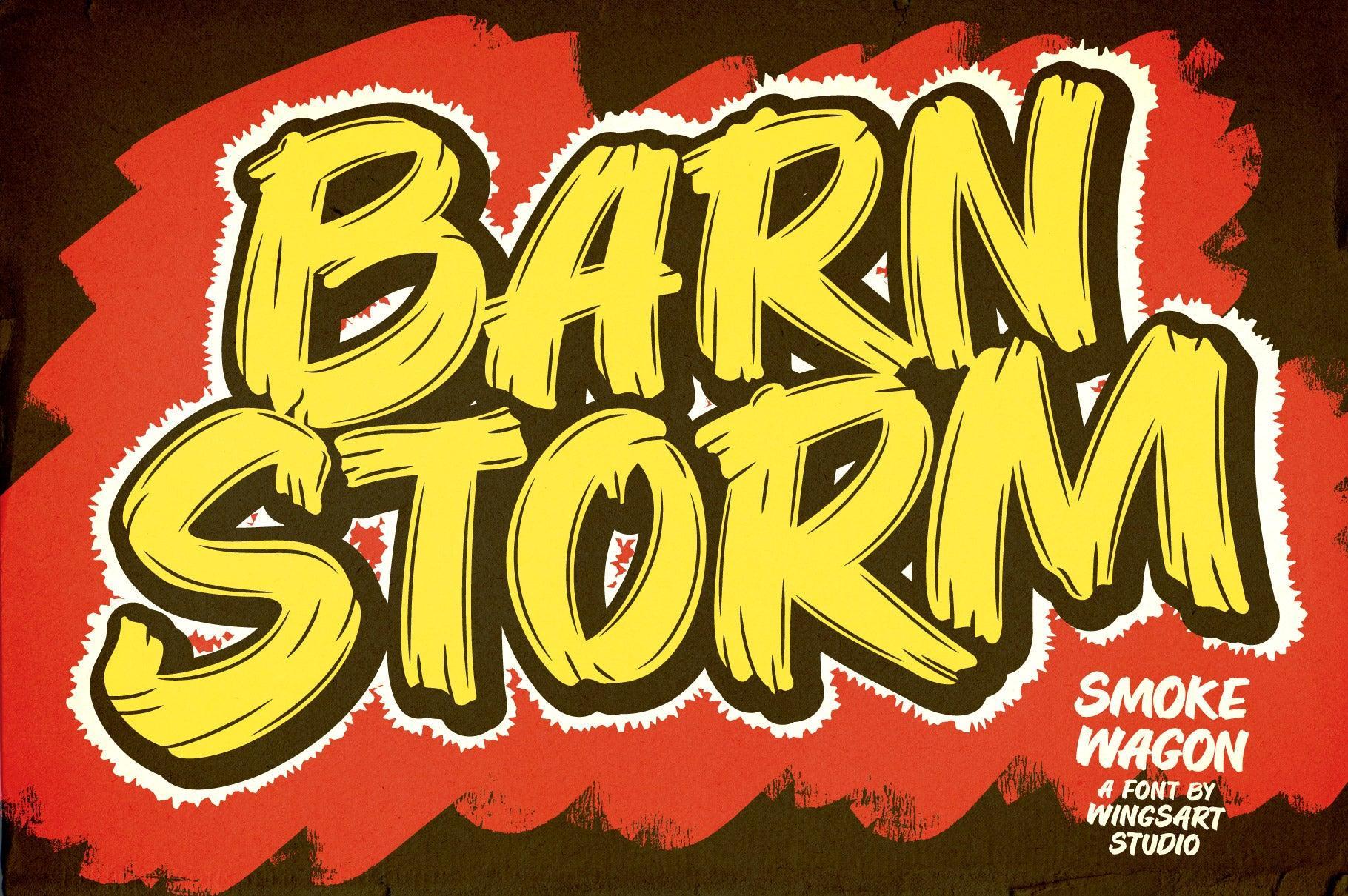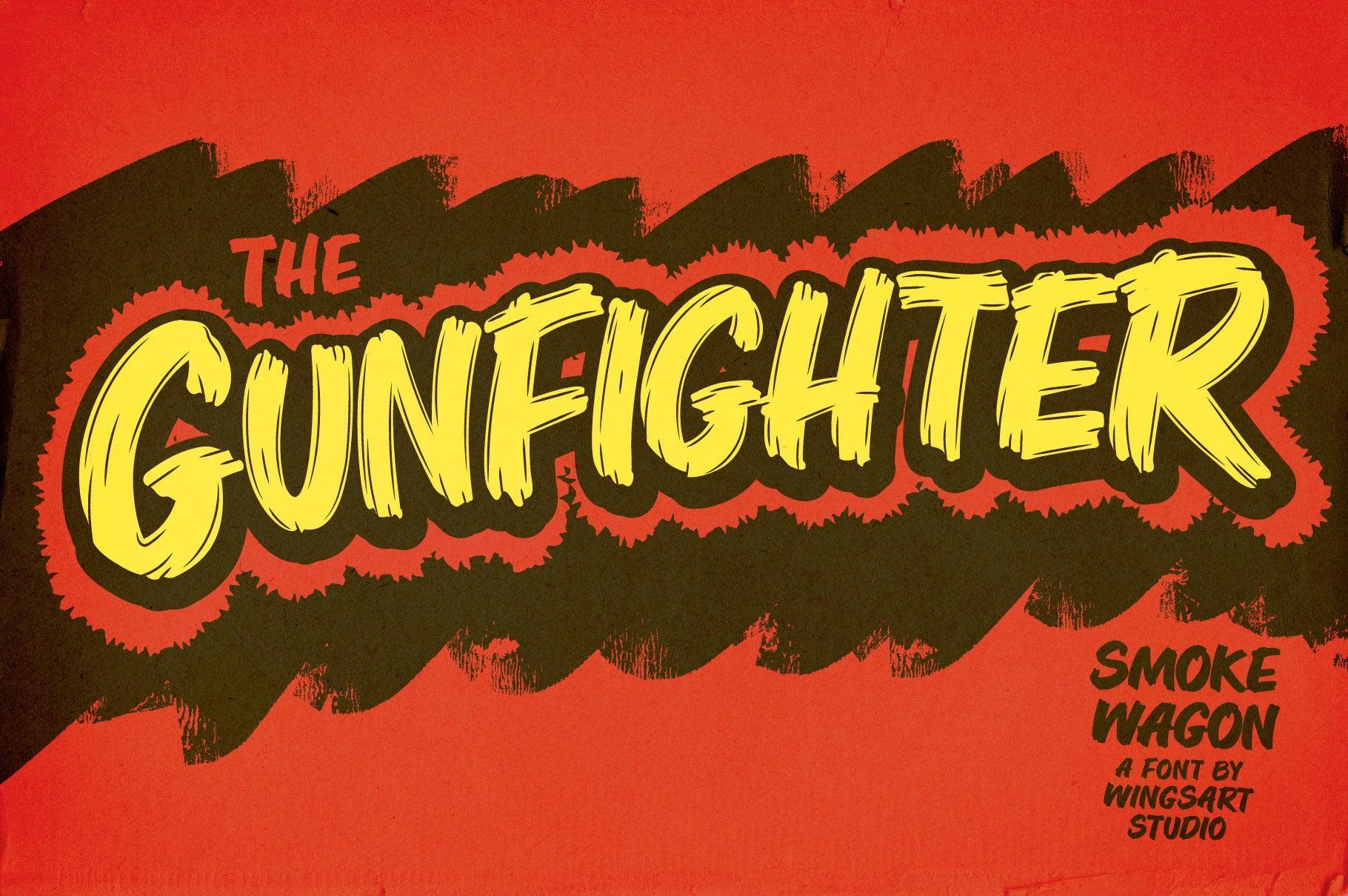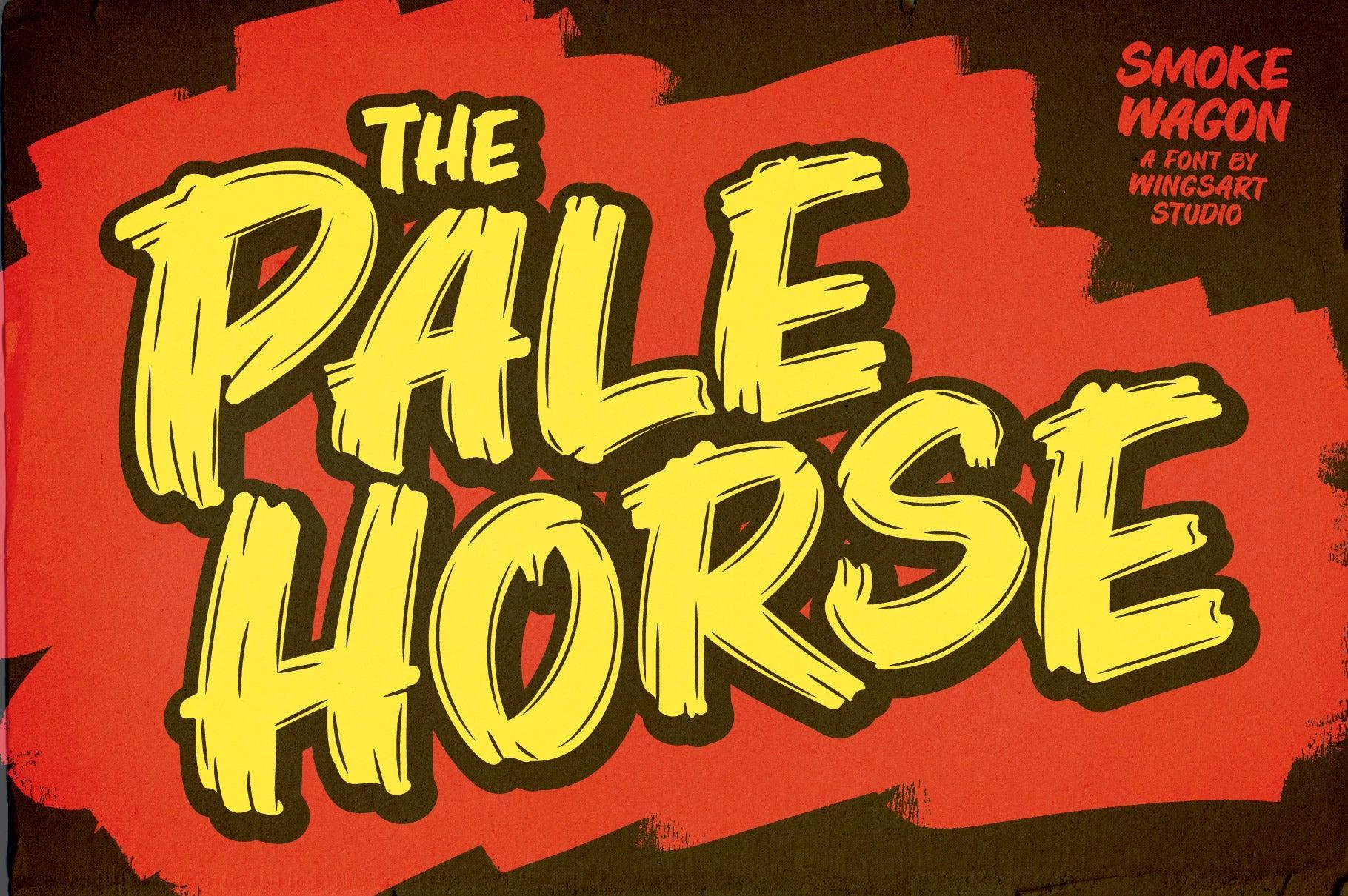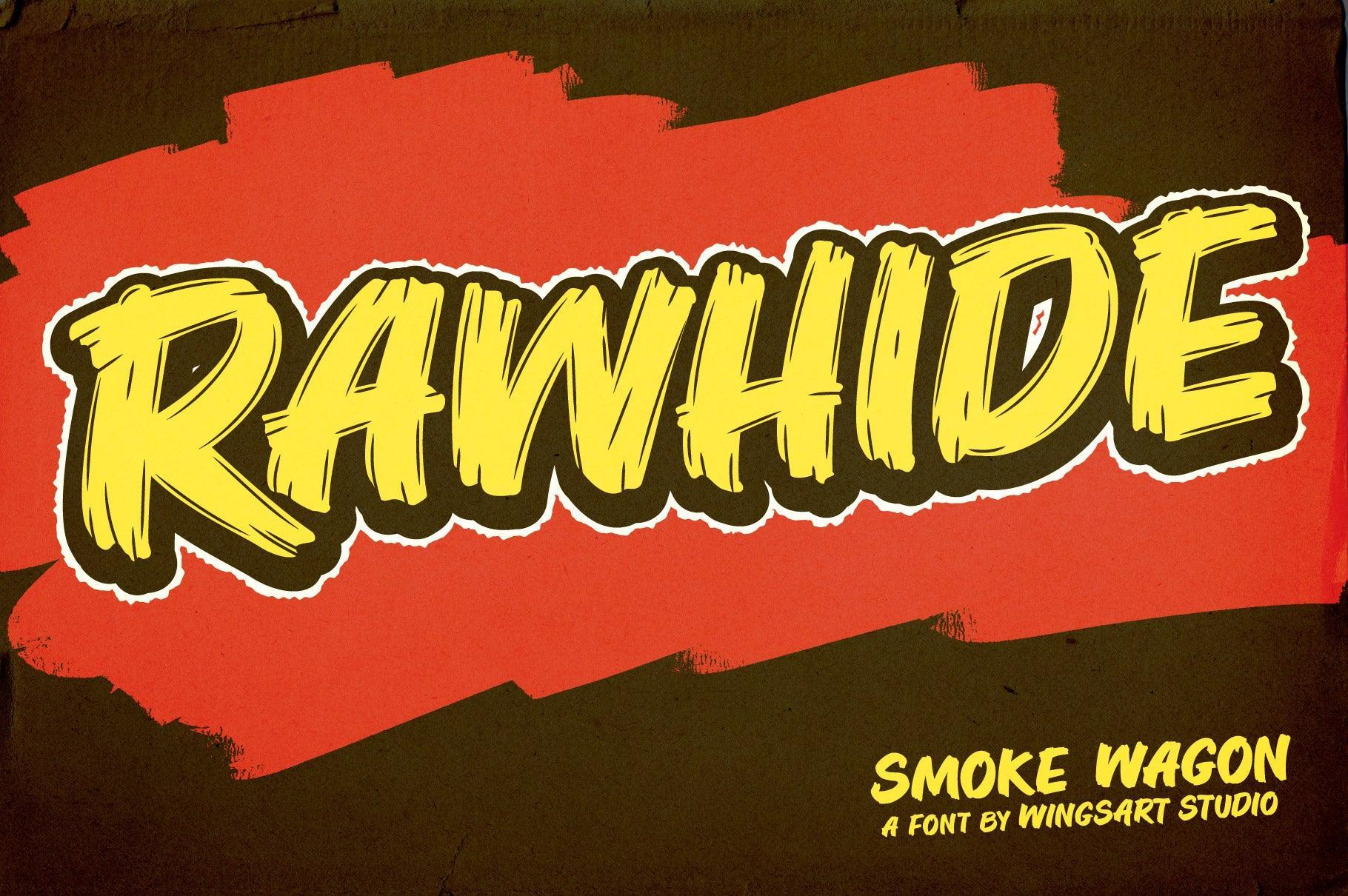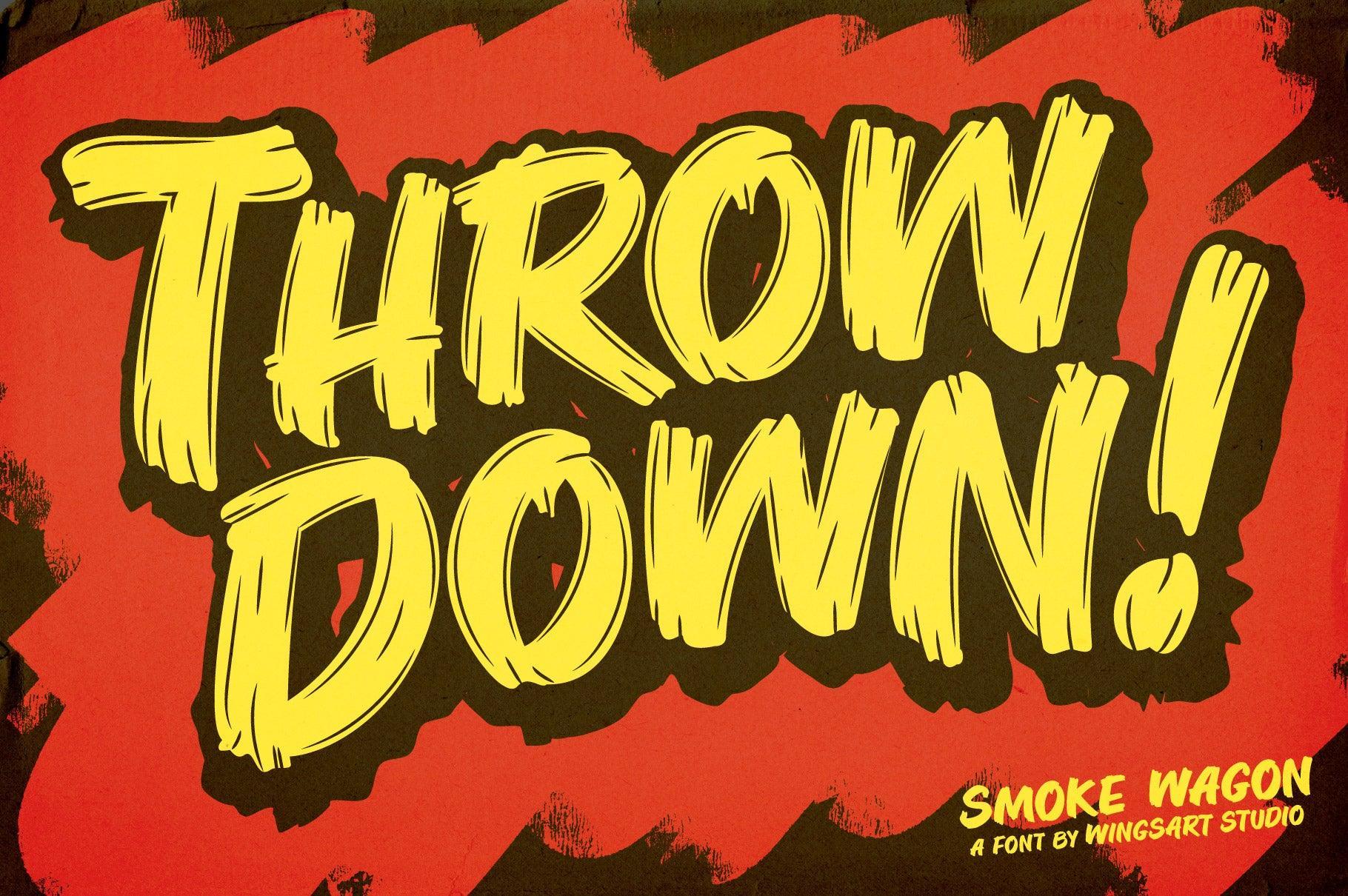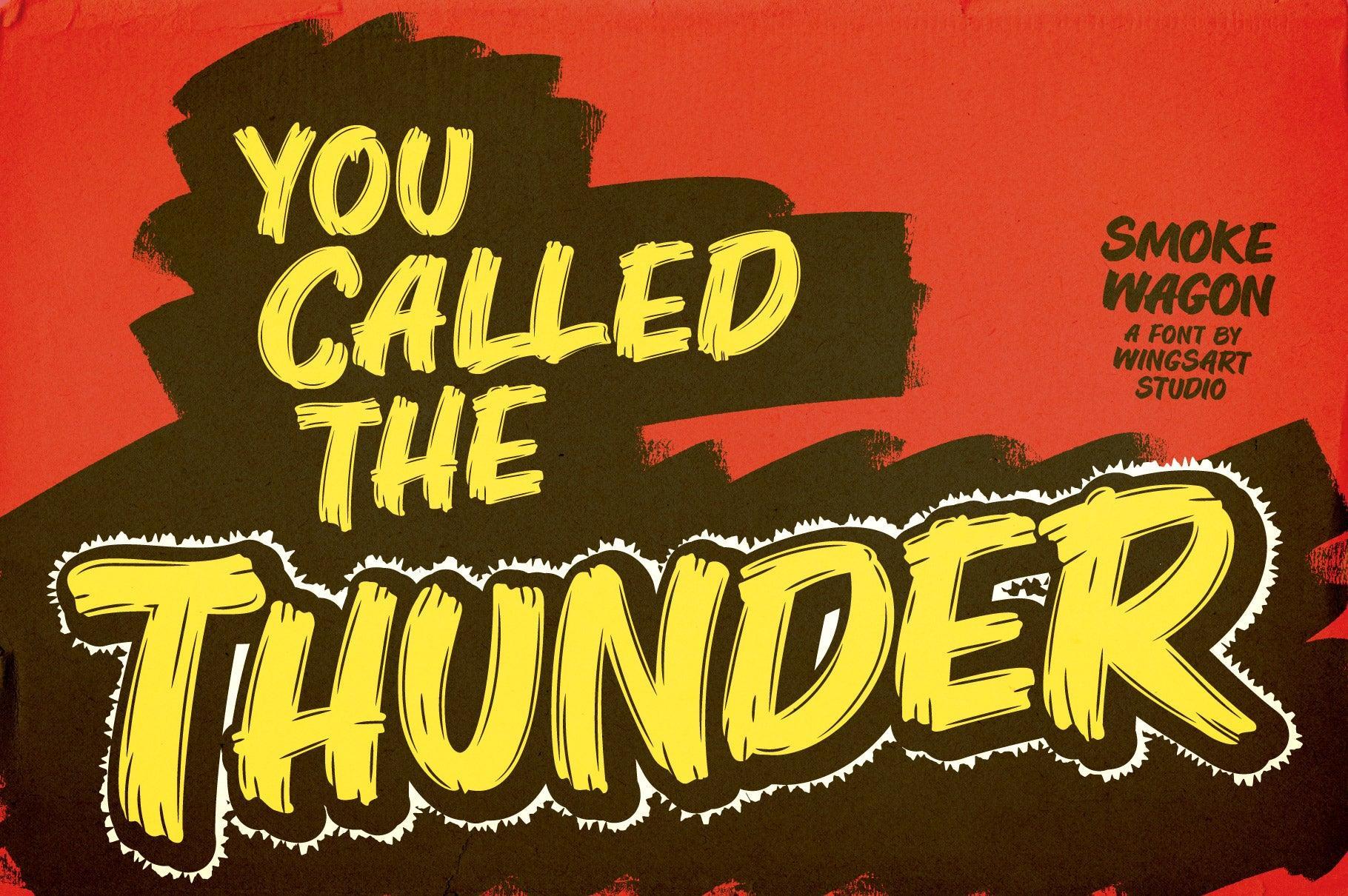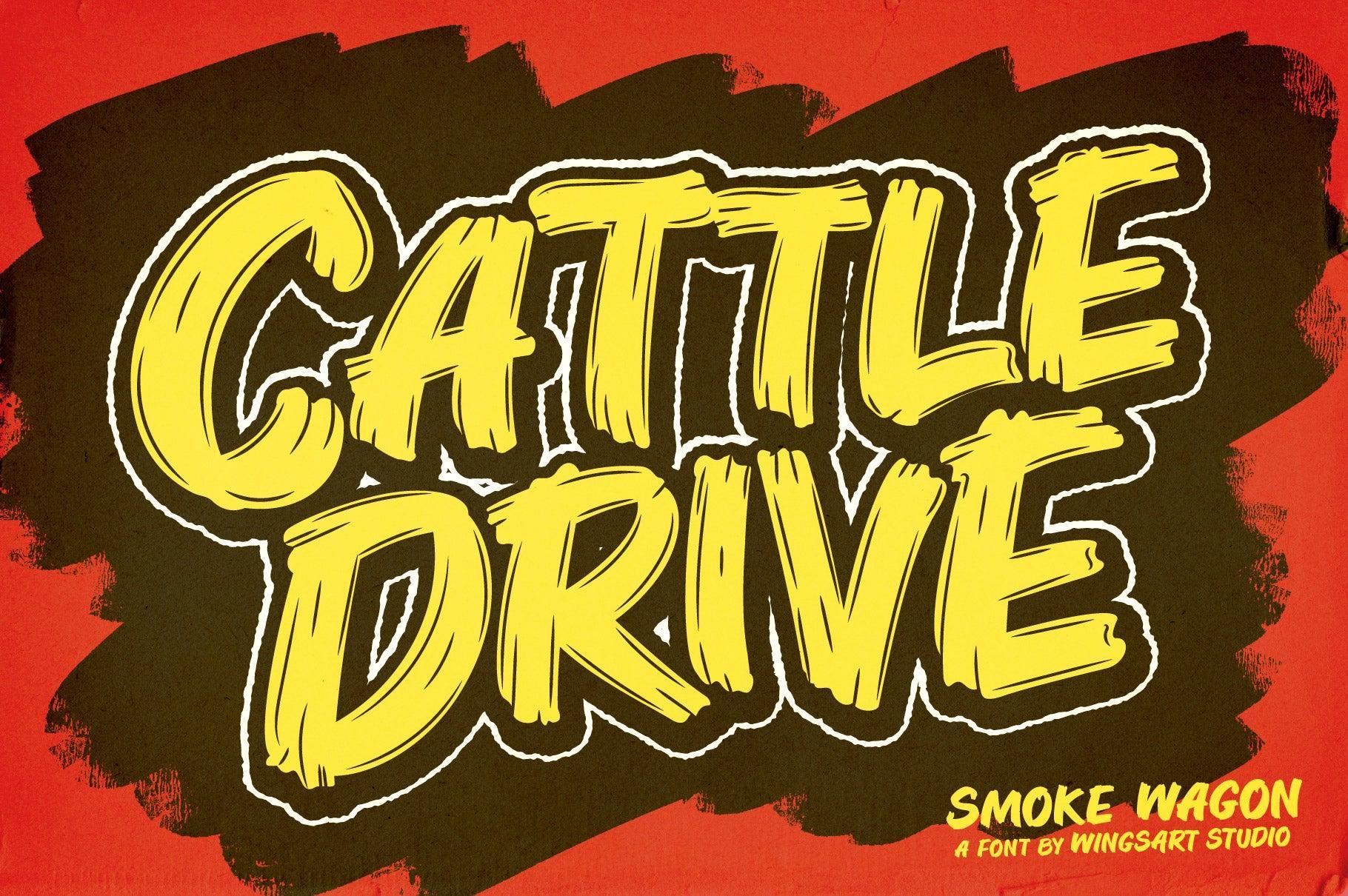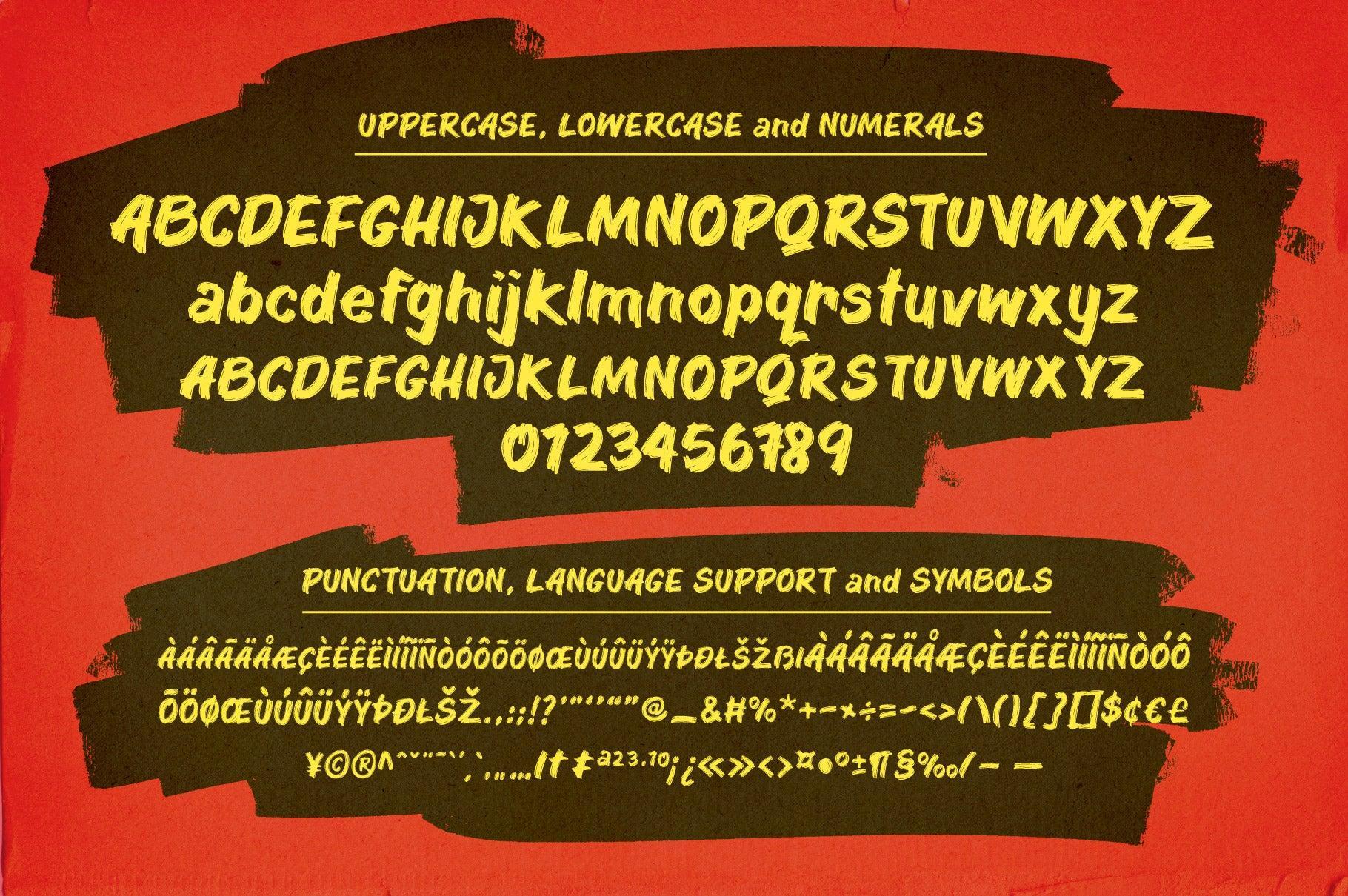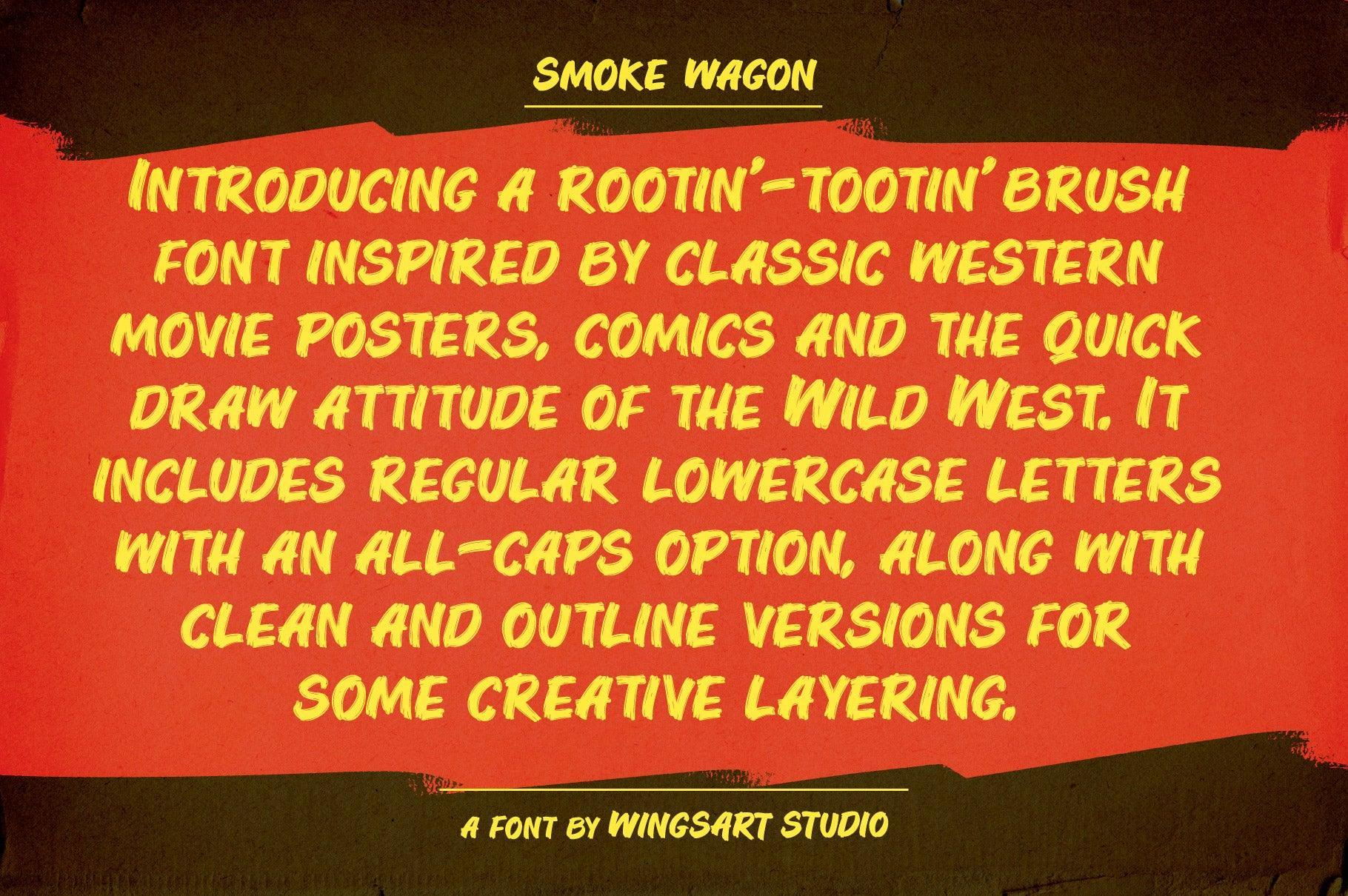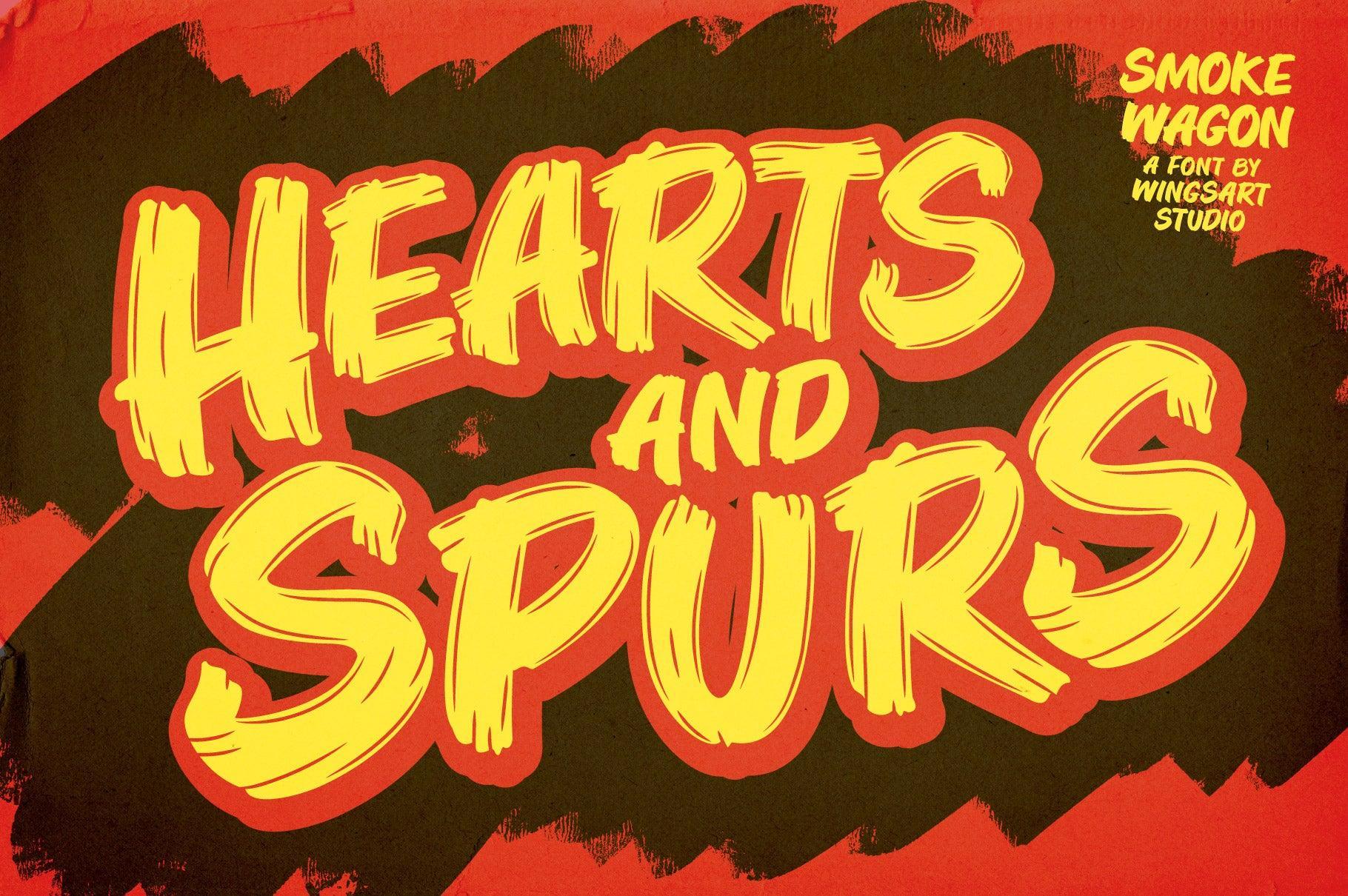
Smoke Wagon - A Western Brush Font
Smoke Wagon is a western brush font that includes a complete set of uppercase and lowercase characters, numerals, punctuation, and symbols, along with an all-caps variant for impactful titles. It features Regular, All Caps, Clean, and Outer versions, as well as an experimental "Rough Justice" variant, all available in OTF, TTF, and WOFF formats.
Ideal for vintage-inspired graphic design and western-themed projects. Perfect for posters, branding, and album covers, ensuring a bold and authentic aesthetic that captures the spirit of the Wild West.